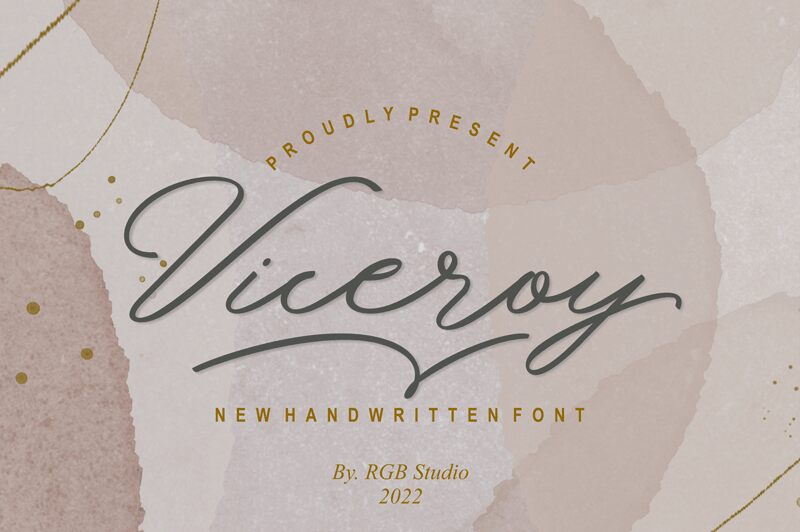
Viceroy, designed by RGB Studio, exudes a casual yet chic sophistication reminiscent of handwritten calligraphy. Its elegant flow and organic form lend a personal touch to every design it graces. With beautiful swashes that bookend lowercase letters, Viceroy brings the charm of realistic hand-lettering to any project.
This font's artful construction shines in branding materials, wedding invitations, greeting cards, and could elegantly adorn the labels of fine red wines. The full set of characters offers versatility while maintaining the intimate feel of pen on paper-a timeless choice for conveying luxury and exclusivity with a hint of the artisanal touch.
Viceroy